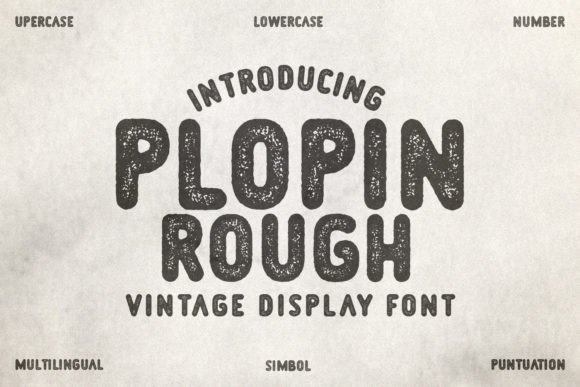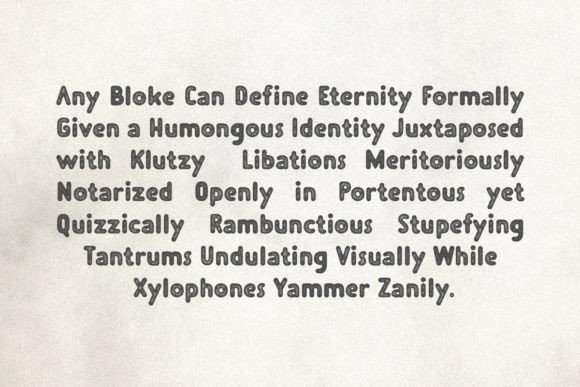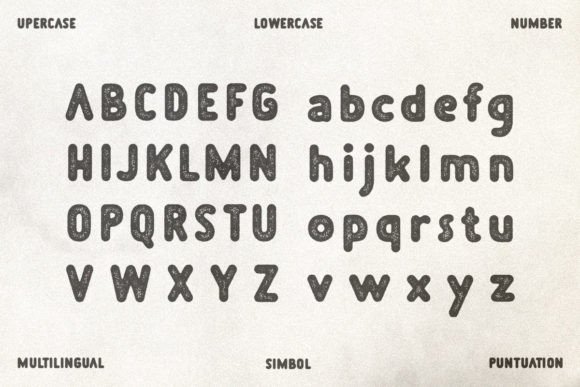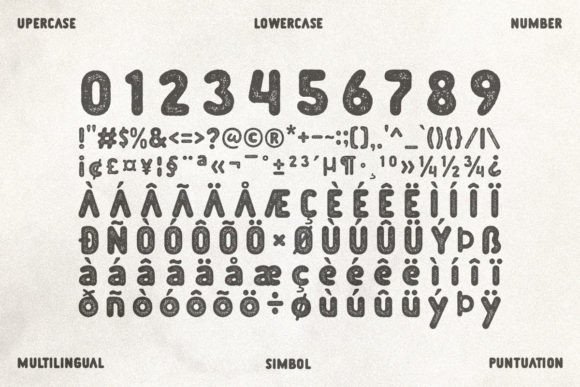
Plopin Rough Font: A Bold Vintage Display Font for Retro Designs
About the Plopin Rough Font
Elevate your designs with Plopin Rough Font, a font that combines sophistication with readability. Plopin Rough is the perfect vintage typeface with a rough texture. It’s great for all kinds of projects that need that perfect vintage and retro touch, such as video game titles, posters, clothes, album covers, movies, etc.
Plopin Rough’s strong, textured forms excel in headlines, posters, and branding applications where a bold, vintage aesthetic is desired. Its rugged charm works well for projects evoking nostalgia or a rebellious spirit, such as apparel designs or music-related materials. However, its rough texture and relatively large x-height make it unsuitable for body text or UI elements requiring high readability.
For effective pairings, consider a clean sans-serif like Open Sans or a more geometric sans-serif like Futura for contrast and readability in supporting text. A delicate script font, used sparingly, could add a touch of elegance, while a neutral serif like Garamond might create a classic, vintage feel.
The overall personality of Plopin Rough is bold and vintage, with a slightly rebellious edge. It’s best suited for brands aiming for a strong, retro-inspired identity, conveying authenticity and a sense of history.